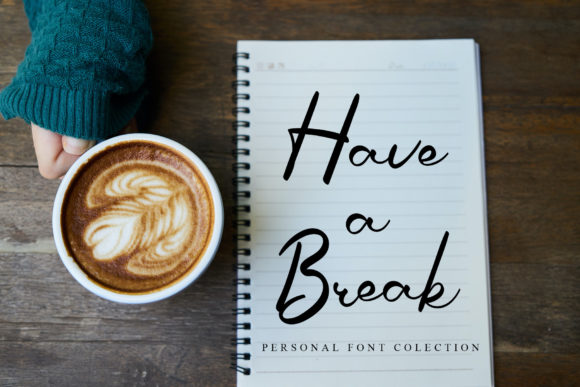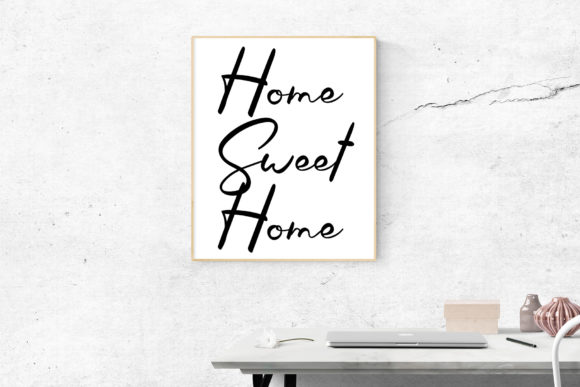
Romantic Sunflower Font
db-ku.com - Script & Handwritten -- Romantic Sunflower is a whimsical script font with a relaxed theme, featuring a lovely style. No matter the topic, this font will be an incredible asset to your fonts’ library, as it has the potential to elevate any creation.